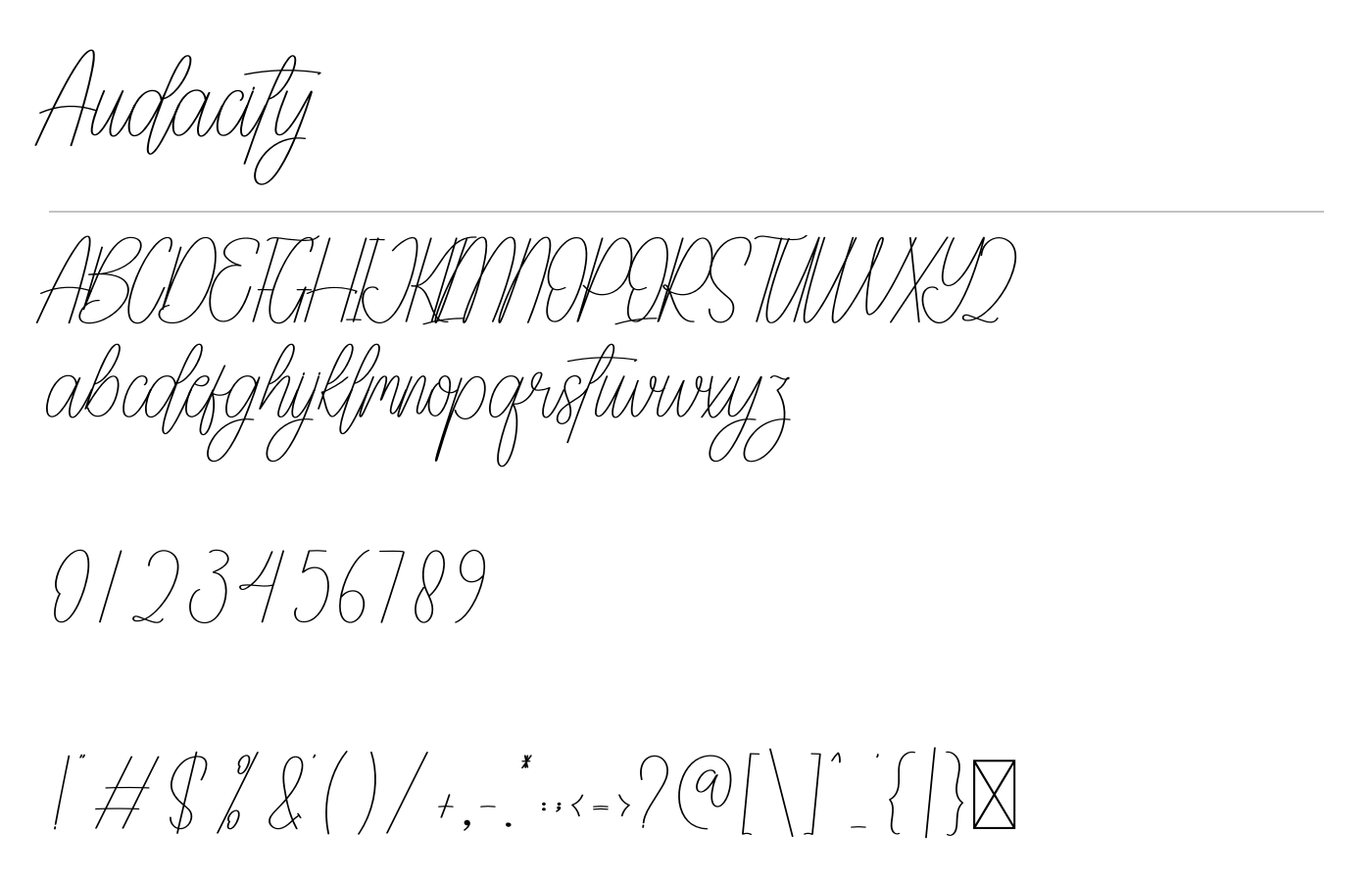
Audacity Font is an elegant, thin script typeface with a delicate and flowing handwritten style. Its tall, slender letterforms and graceful curves convey a sense of sophistication and creativity, making it ideal for fashion branding, invitations, and modern editorial design where an airy, stylish touch is desired. The font’s refined character set and light stroke weight create a subtle yet expressive personality, perfect for projects that seek elegance without overpowering the message.
Audacity Font